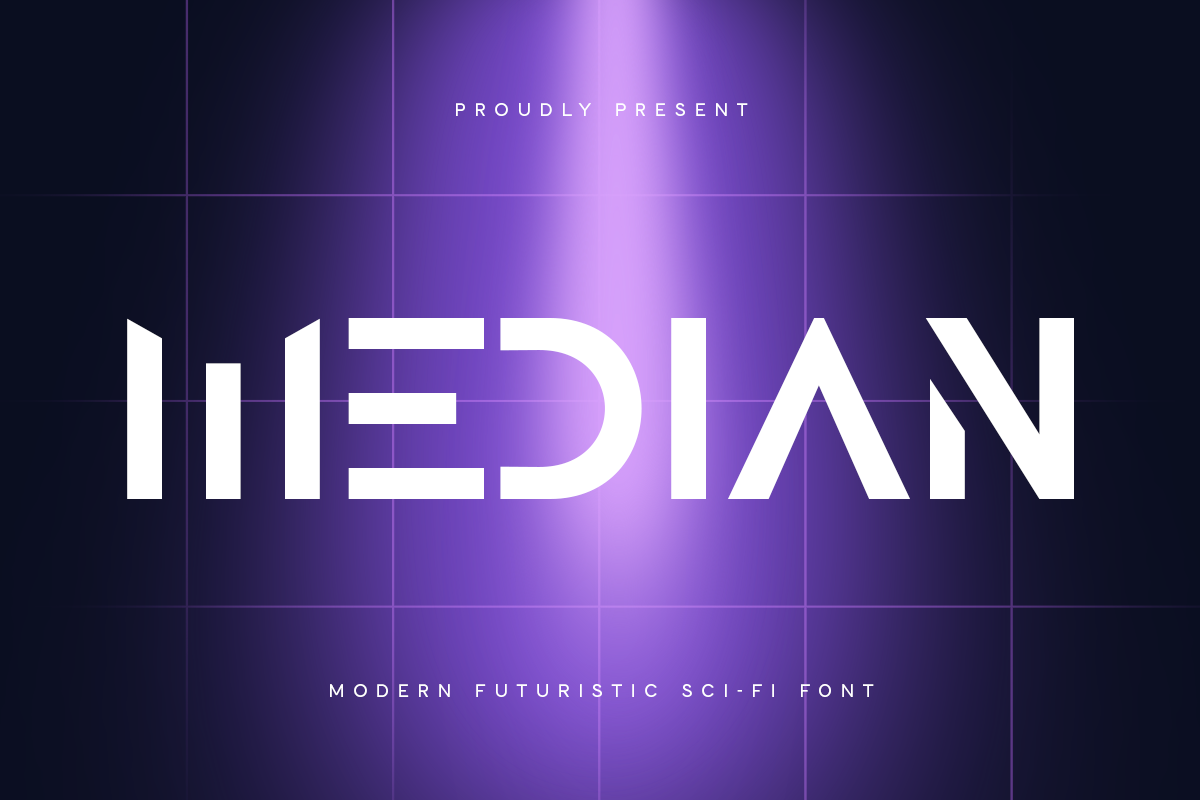
Median - Futuristic Sci-fi Font
MEDIAN delivers cutting-edge futuristic typography designed specifically for technology, sci-fi, and modern digital projects. This modern futuristic techno font was crafted especially for technology, modern, and futuristic design requirements. Perfect for creating standout logos, impactful titles, and eye-catching typography that commands attention in futuristic and sci-fi contexts. MEDIAN excels at enhancing your design style and headline presentations for technology, film, space, and futuristi...